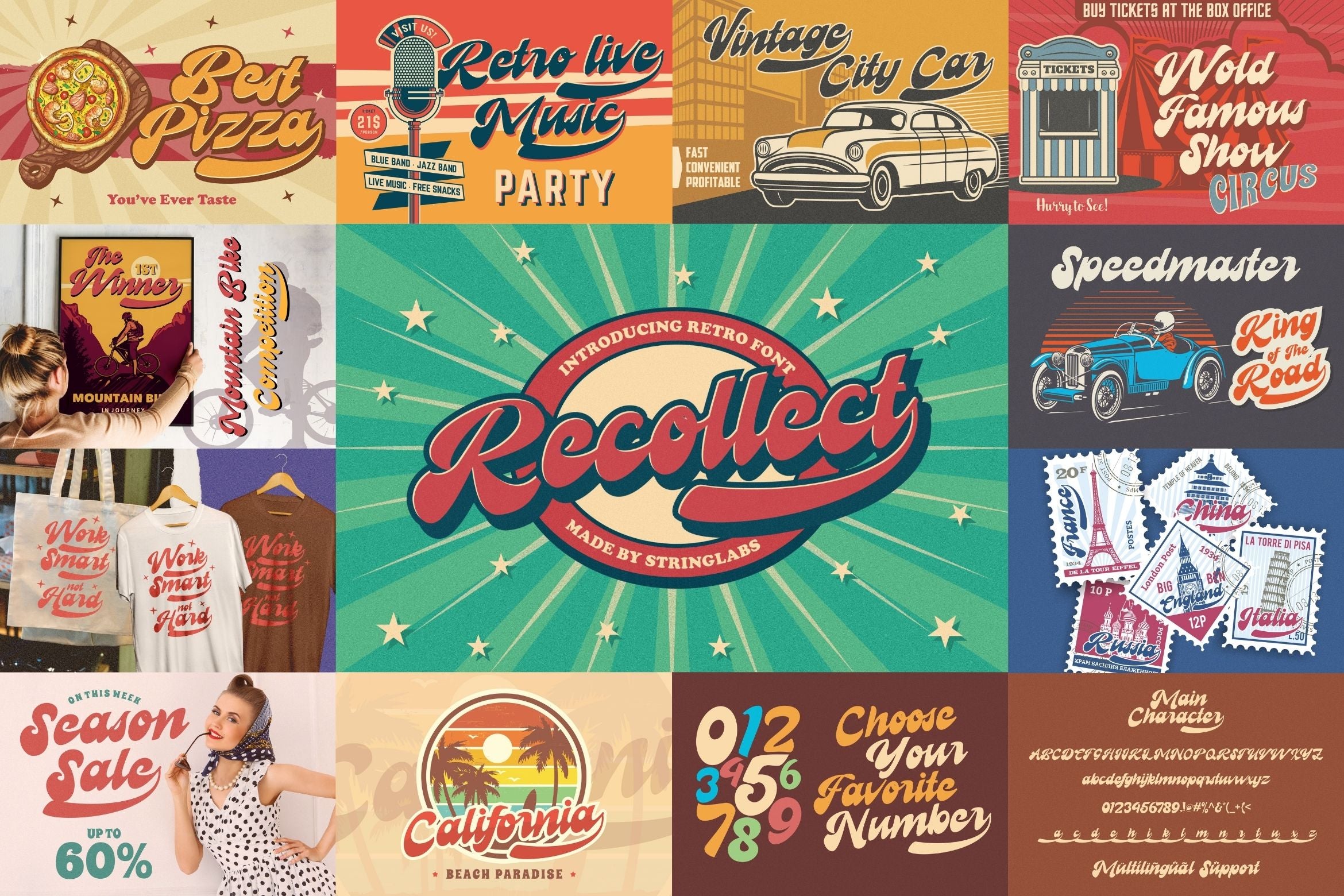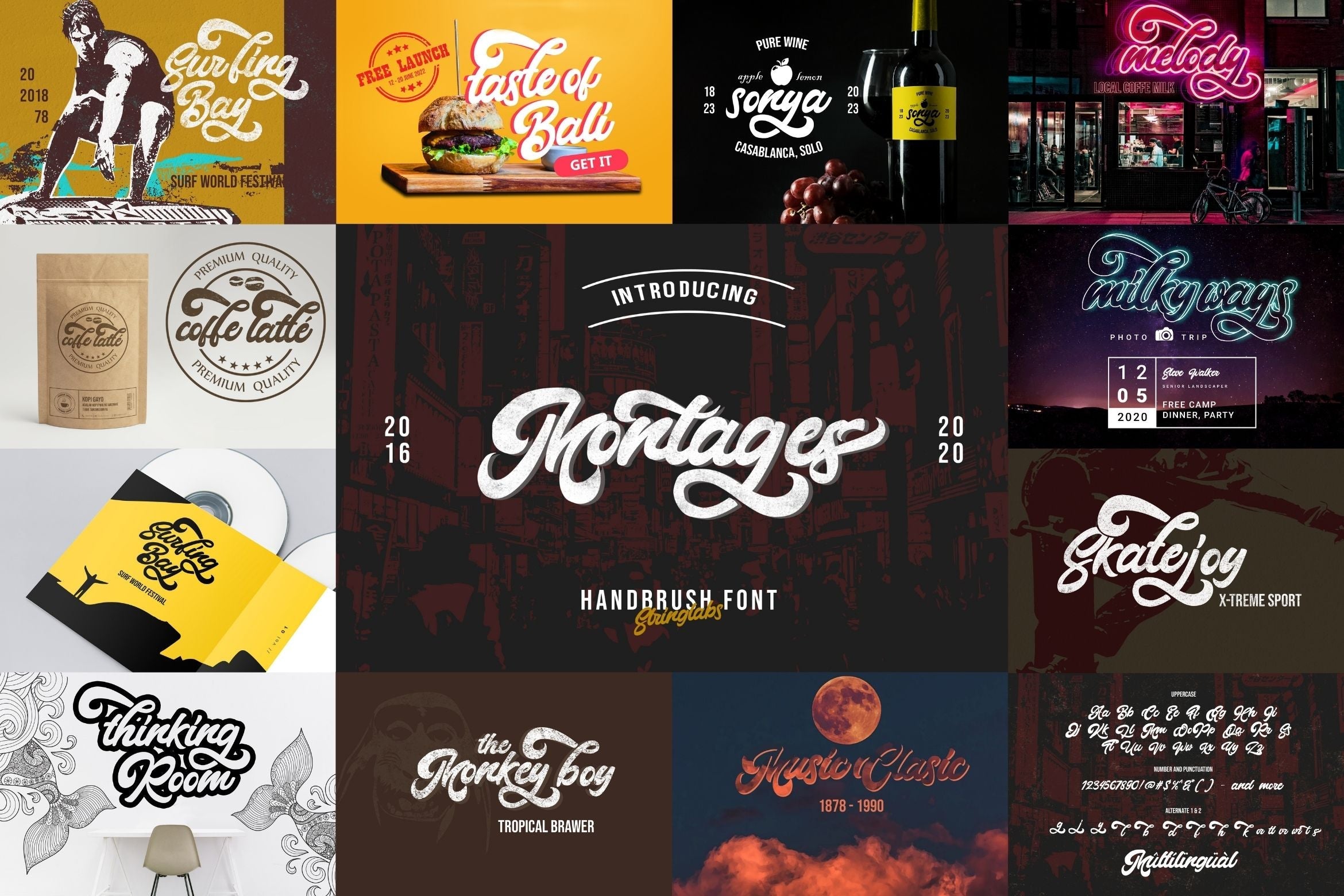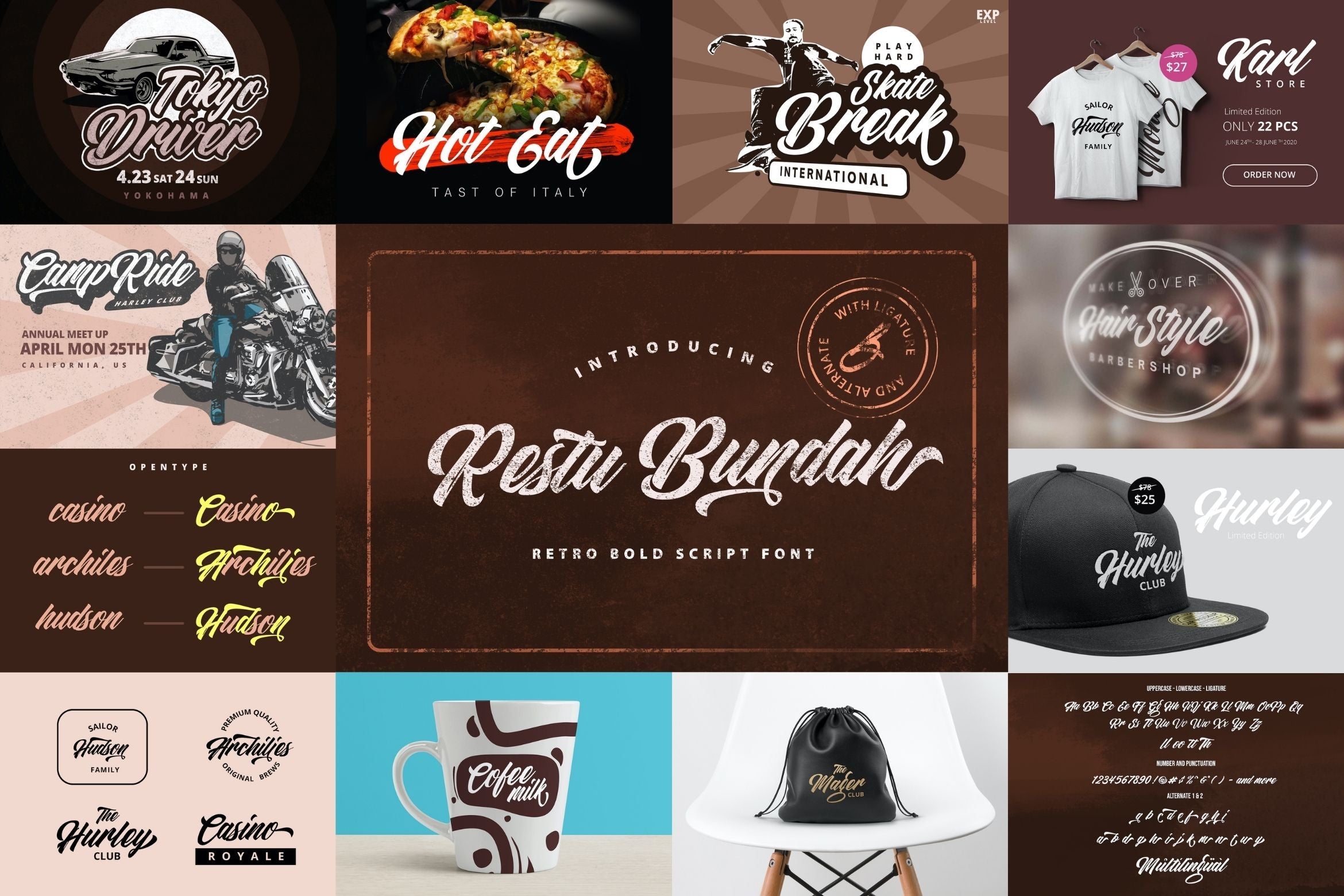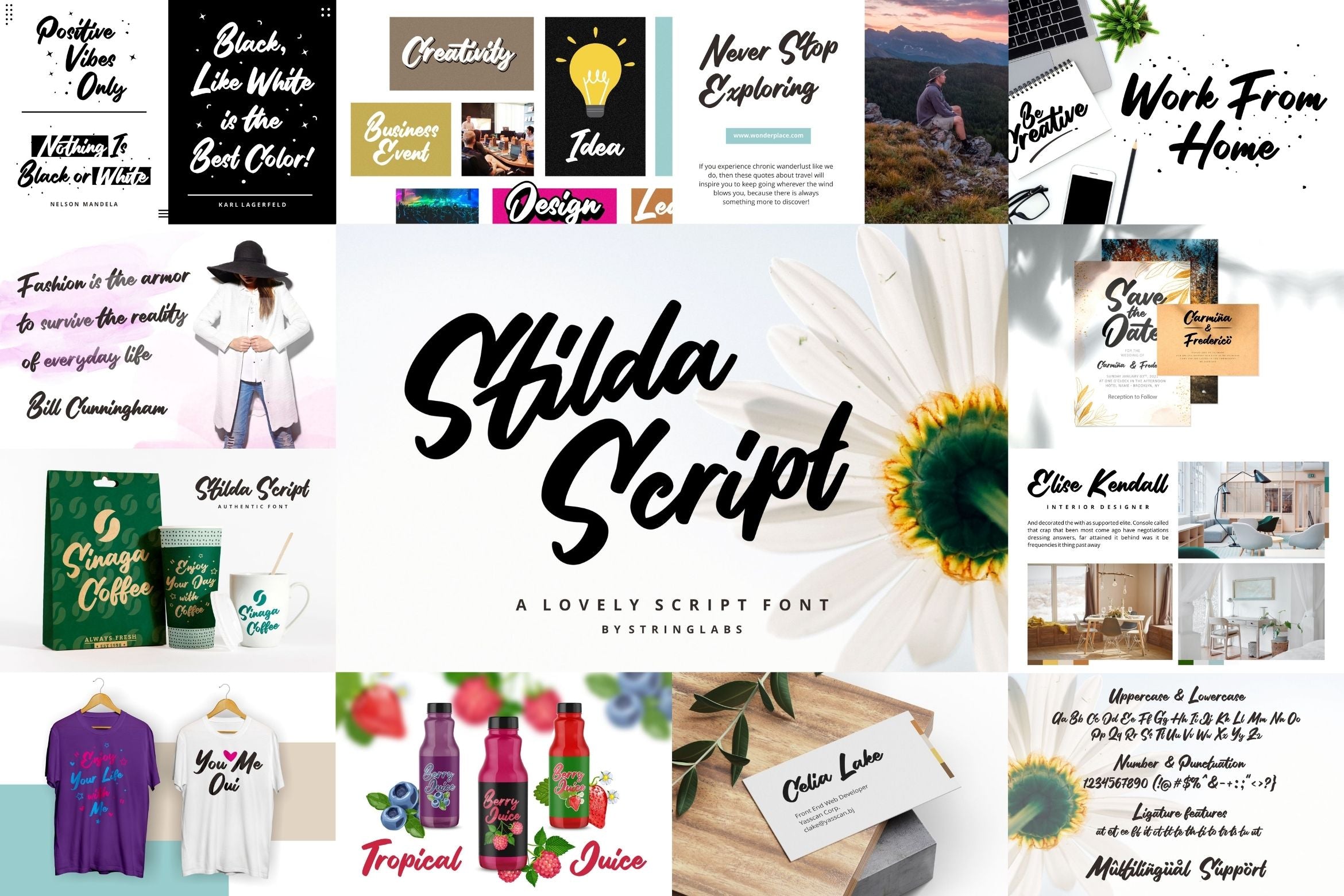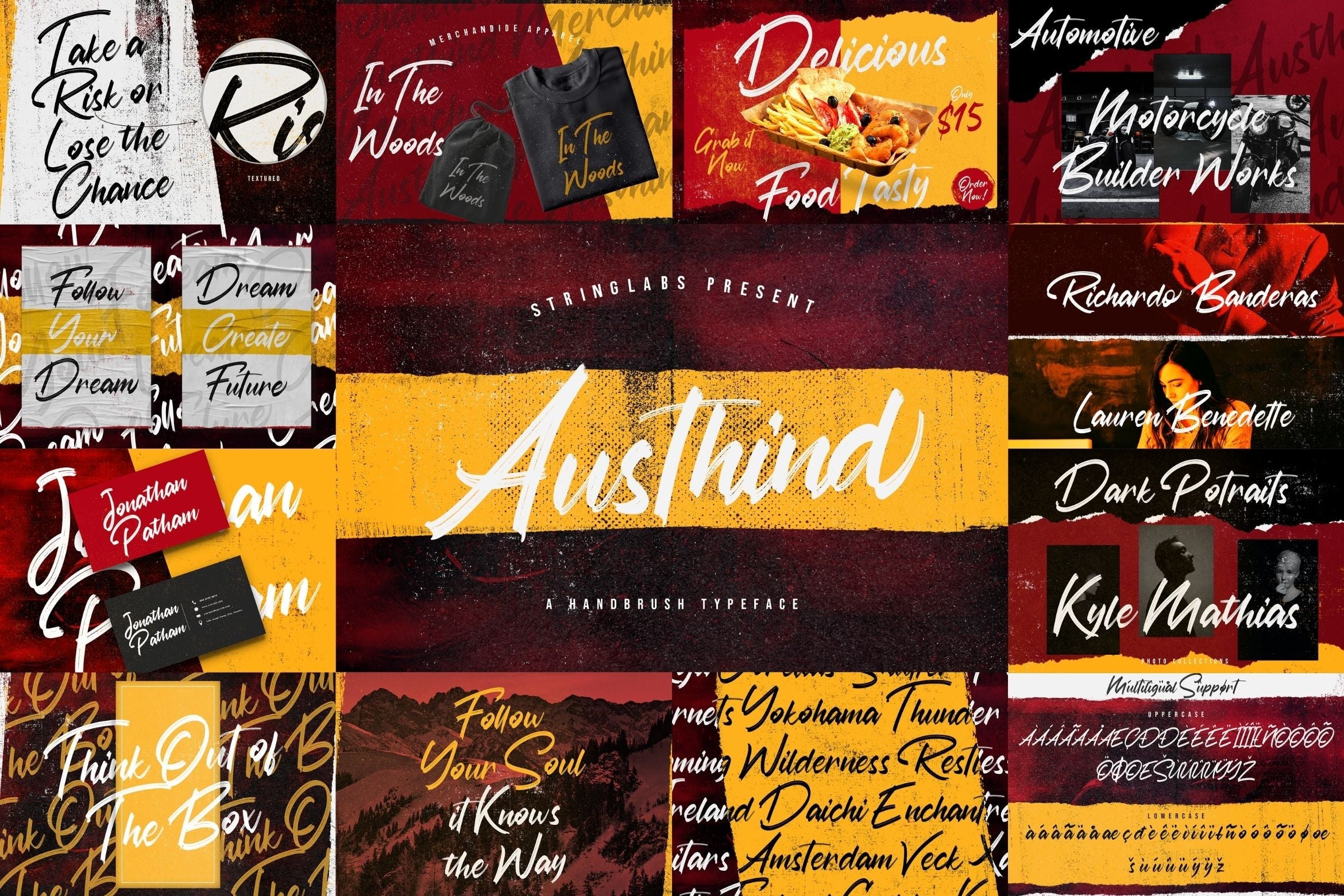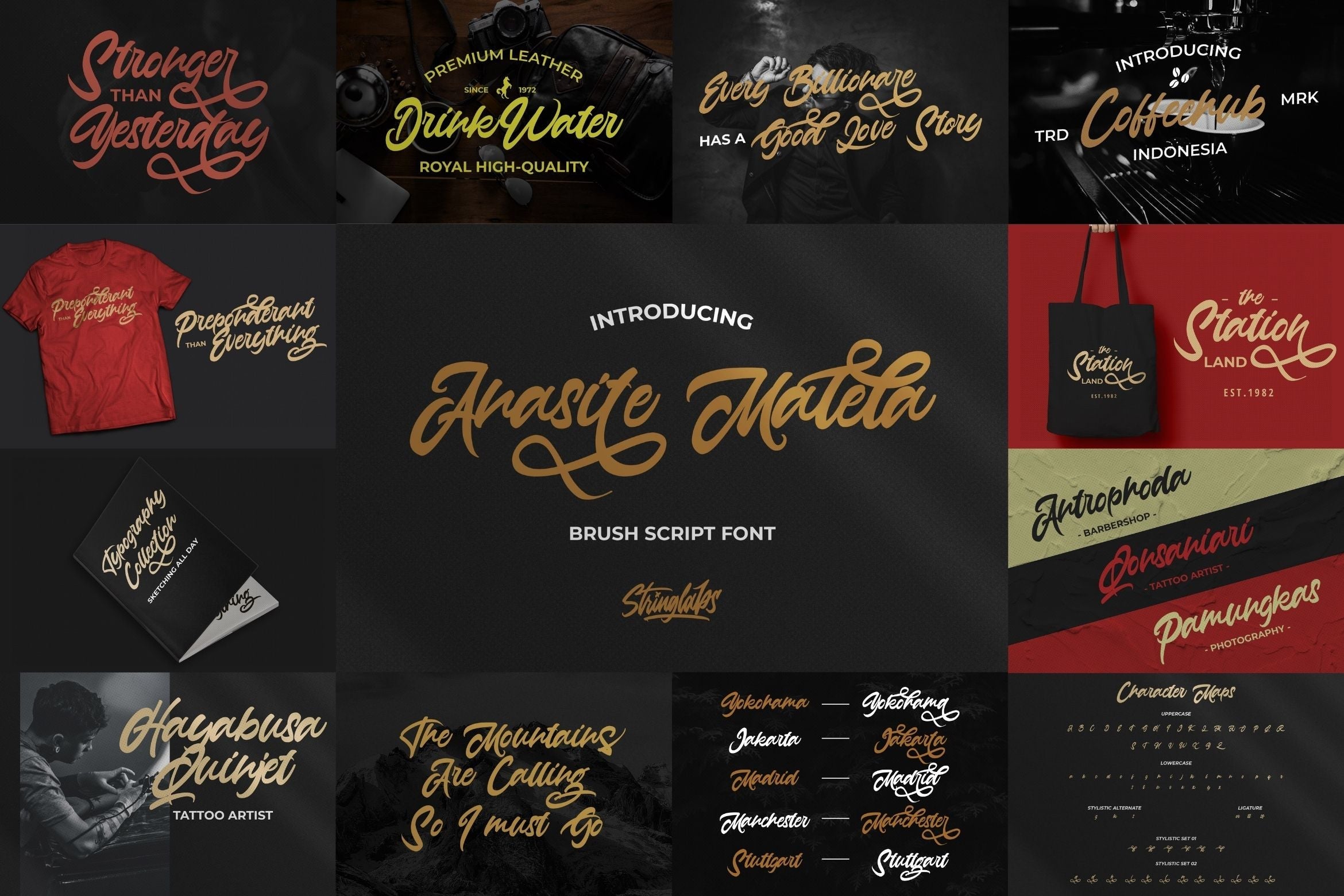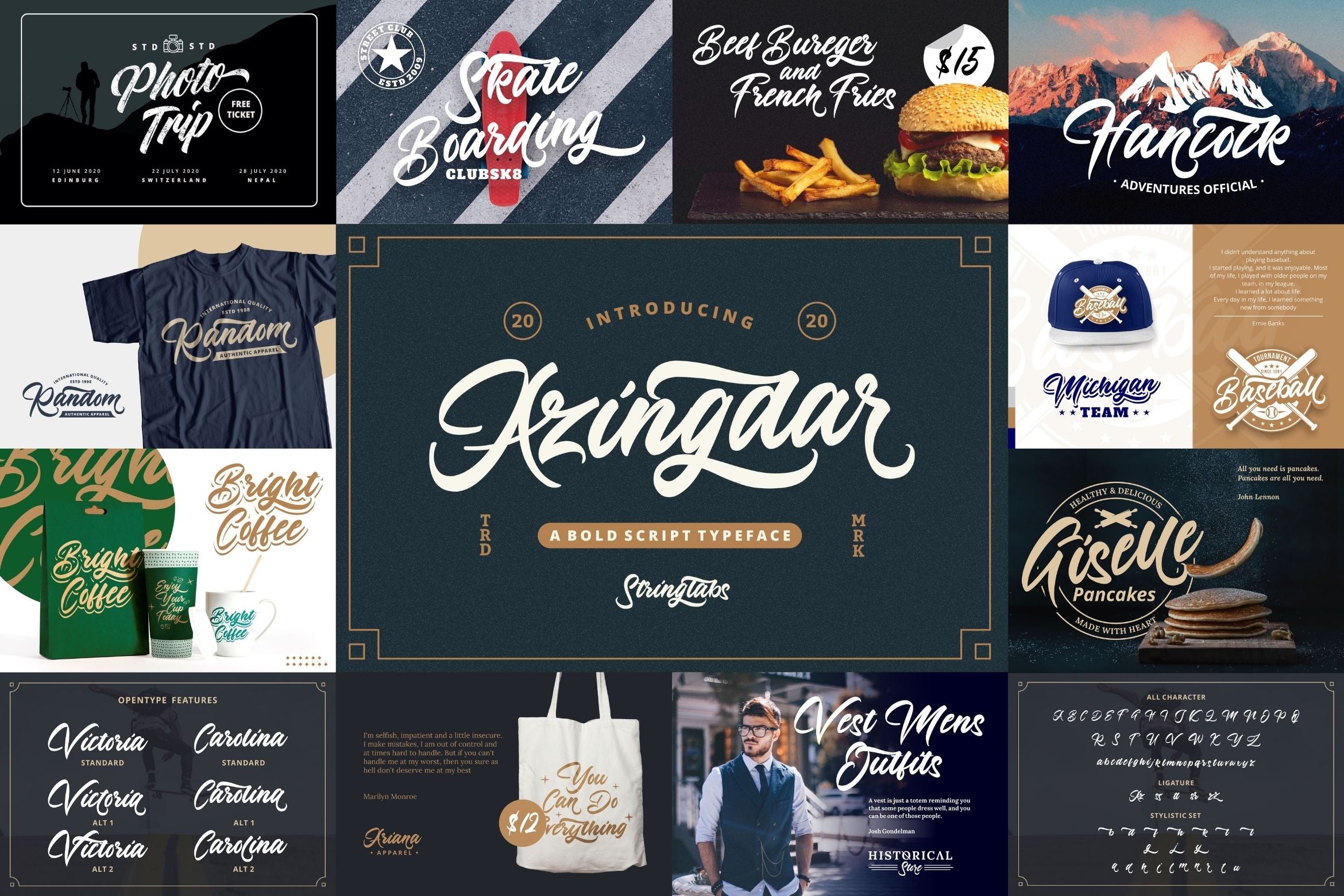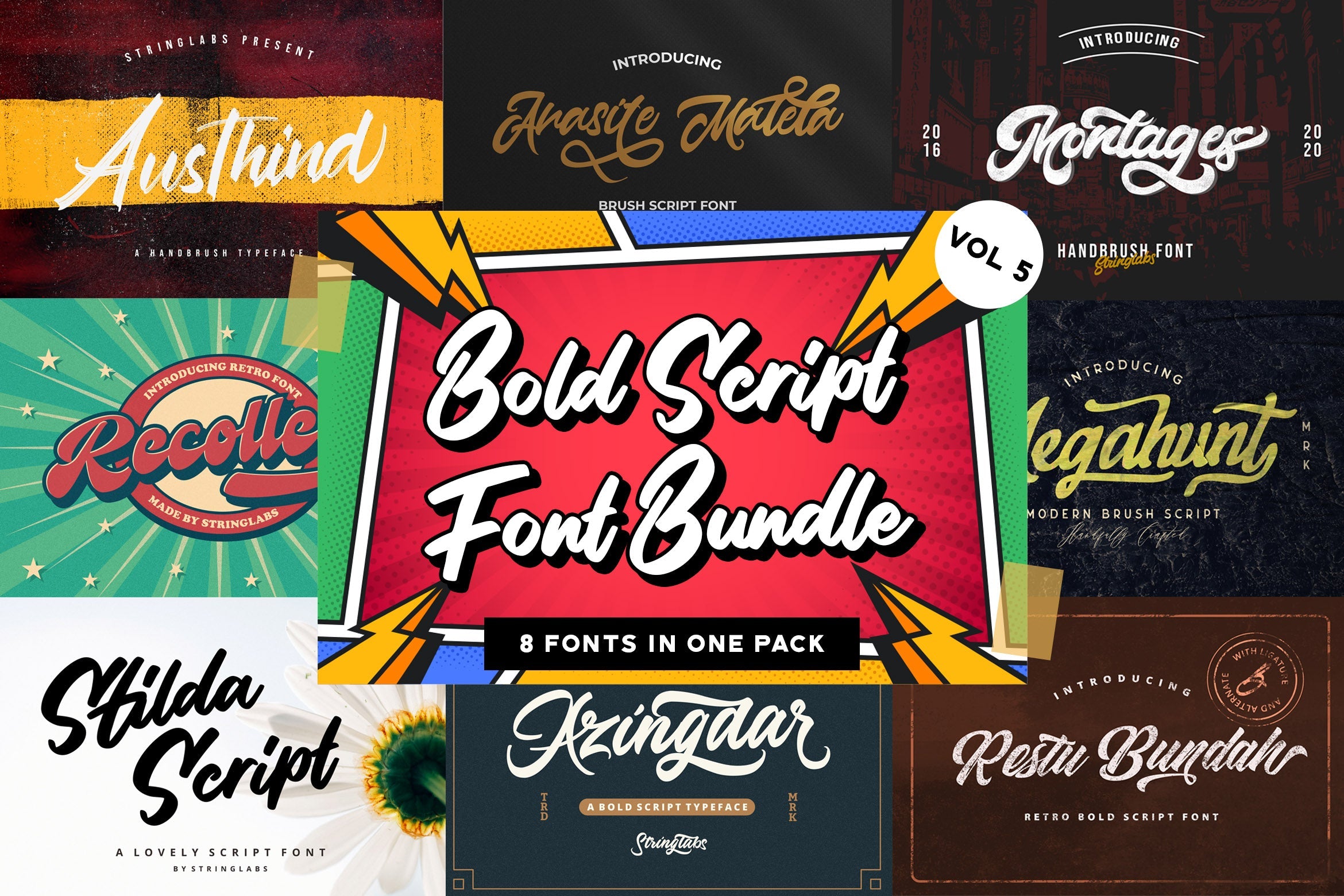
Bold Script Font Bundle Vol 5
About Bold Script Font Bundle Vol 5
Bold Script Font Bundle Vol 5 is a beautiful retro and vintage styled script font. This font bundle contains 8 high quality bold script font, It reads as strong, confident, and dynamic and can add tons of nostalgic character to your designs, and also that will look particularly adept when used in logos, branding, packaging design, and much more. It has beautiful and well balanced characters and as a result, it matches a wide pool of designs. Add it to your most creative ideas and notice how it makes them come alive! FONTS INCLUDED : 1. Austhind 2. Megahunt 3. Restu Bundah 4. Azingdar 5. Stilda Script 6. Recollet 7. Montages 8. Anasite Malela Fonts available in format : OTF, TTF, WOFF, WOFF2